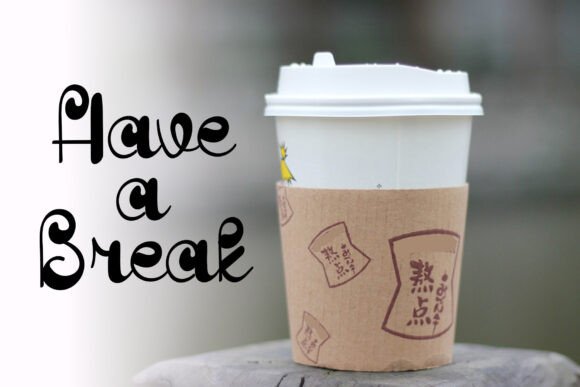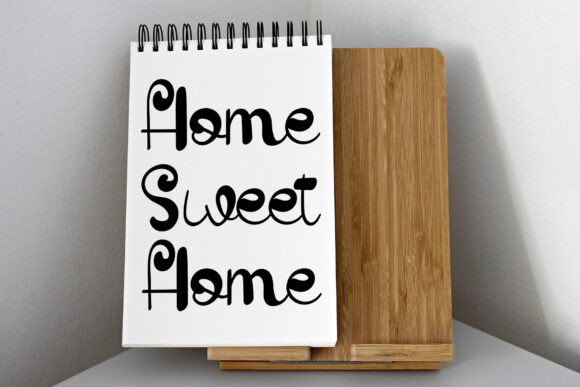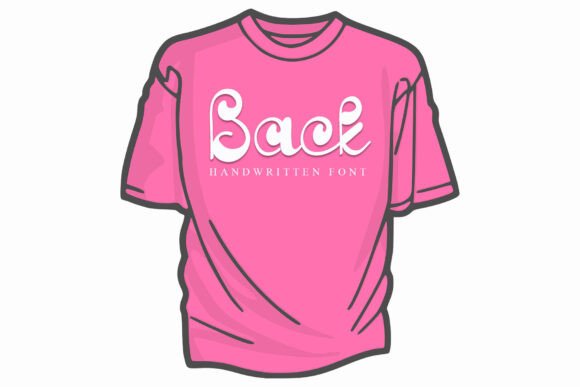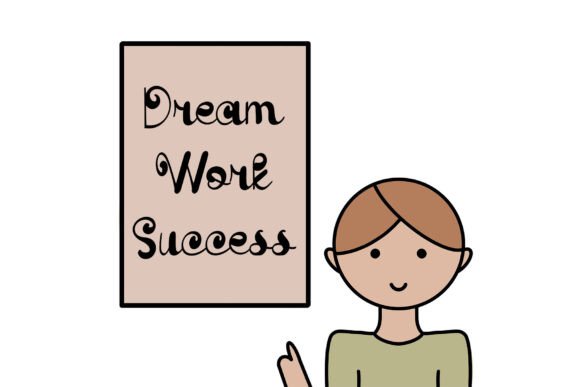
The Avocado Font: A Sweet and Friendly Companion for Your Design Journey
I’ll never forget the time I was working on a branding project for a trendy cafe, and I just couldn’t find the right font to capture their laid-back, yet sophisticated vibe. That’s when I stumbled upon the Avocado font, and it instantly became my go-to. Its unique, handwritten style added a touch of warmth and personality to the design, making it perfect for the client’s vision.
An Honest Review: The Good and the Quirky
What I Love About Avocado Font
- ✨ Sweet and Friendly Vibe: Avocado font has a natural, approachable feel that makes it perfect for designs that need a personal touch.
- ✅ Highly Versatile: From branding and packaging to social media graphics and invitations, Avocado font adapts seamlessly to various design contexts.
- 💡 OpenType Features: The font comes with a range of OpenType features, including stylistic alternates and glyphs, which allow for creative experimentation and customization.
While Avocado font is an excellent choice for many designs, there are a few minor quirks to be aware of:
- 🤔 Legibility at Small Sizes: Like many handwritten fonts, Avocado can become a bit tricky to read at very small sizes (below 10pt). It’s best to use it at larger sizes or for display purposes.
- ⚠️ Limited Formality: Due to its friendly, casual nature, Avocado font might not be the best fit for very formal or corporate designs.
Avocado font was created with the intention of capturing the warmth and friendliness of handwritten typography. The designer aimed to craft a font that would feel approachable, yet stylish, making it perfect for a wide range of design applications. While the actual design process and inspiration might be shrouded in mystery, it’s clear that Avocado font has become a beloved companion for many designers.
Q: What makes Avocado font suitable for branding and packaging?
A: Avocado font’s unique, handwritten style adds a touch of personality and warmth to branding and packaging designs, making them stand out and connect with audiences.
Q: How does Avocado font compare to other script fonts?
A: Avocado font stands out from other script fonts due to its natural, friendly feel and versatility. While it shares some similarities with other handwritten fonts, its unique character set and OpenType features make it a distinct choice.
Q: Can I use Avocado font for digital and print designs?
A: Absolutely! Avocado font is optimized for both digital and print use. Its clear, legible design makes it suitable for a wide range of applications, from social media graphics to business cards and brochures.